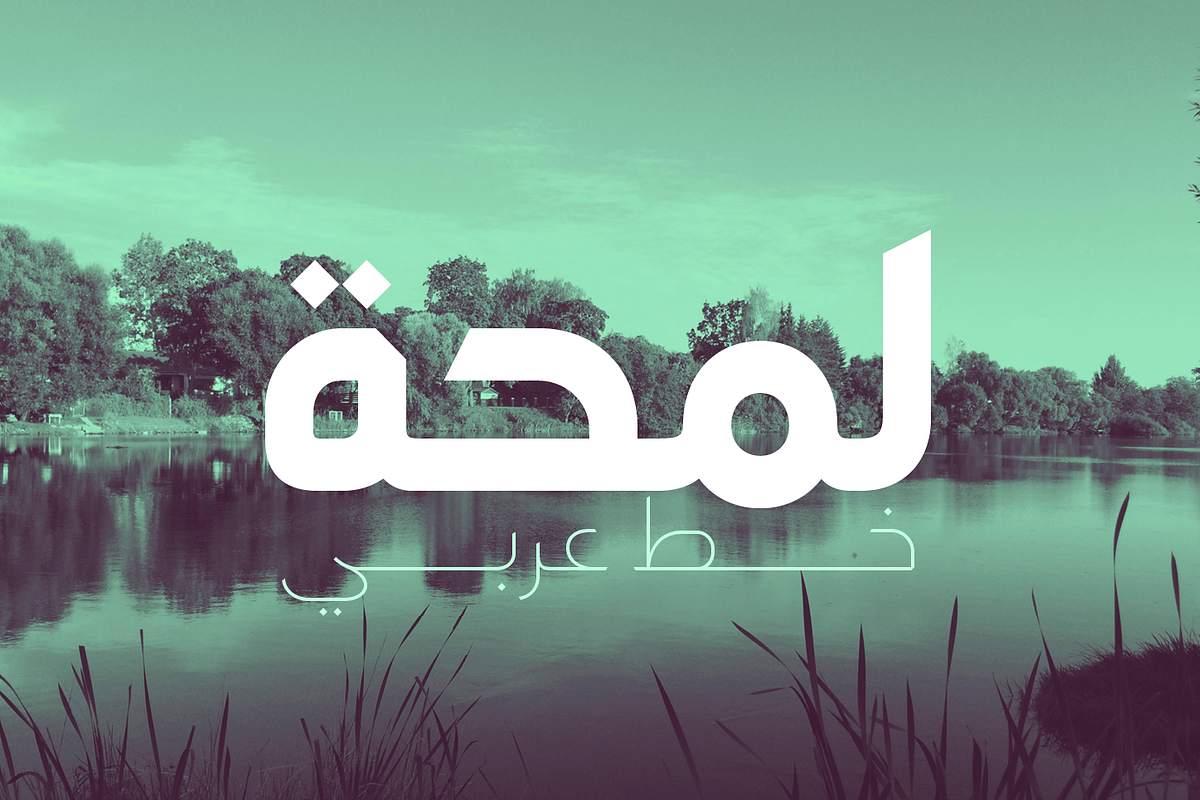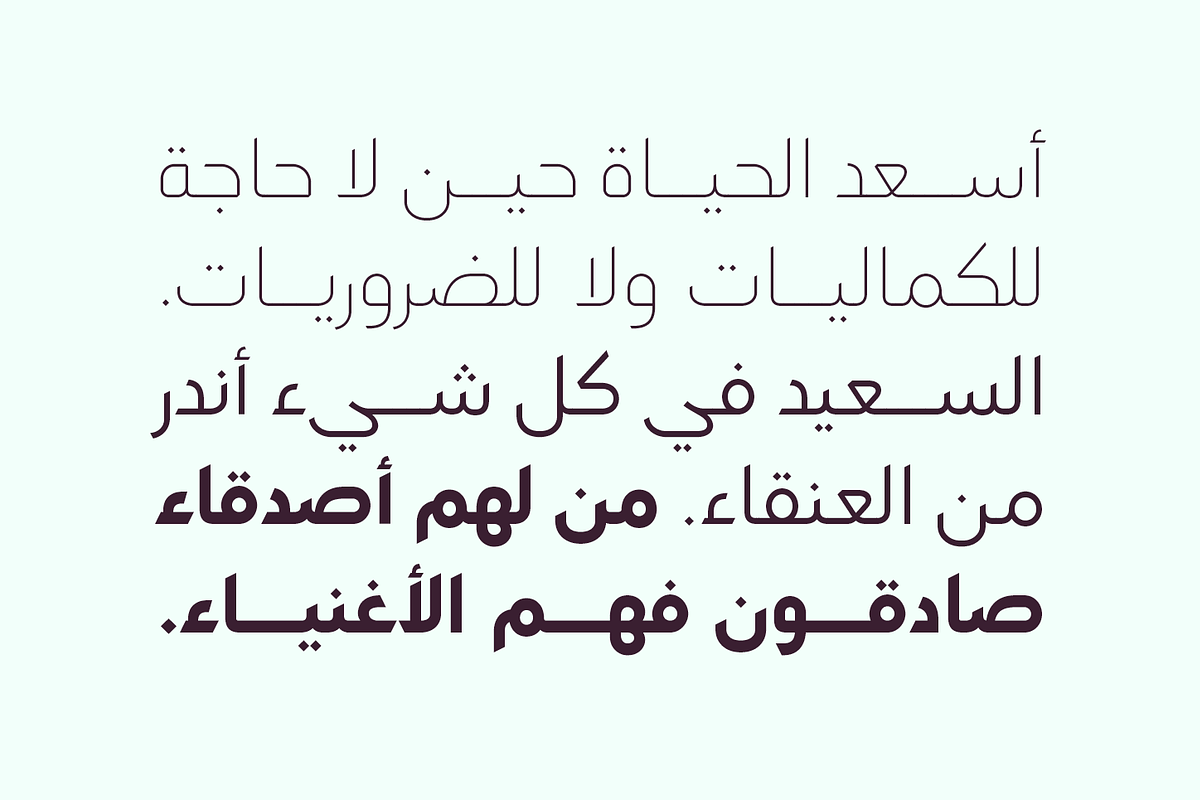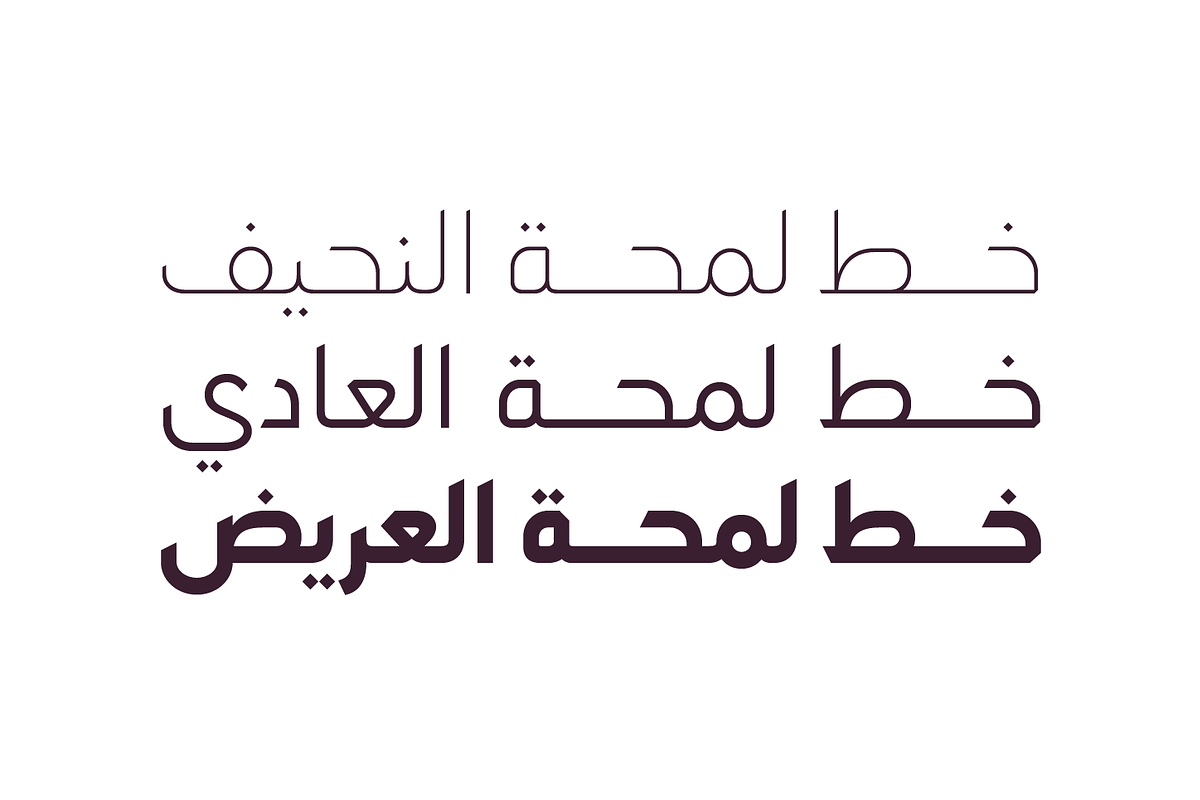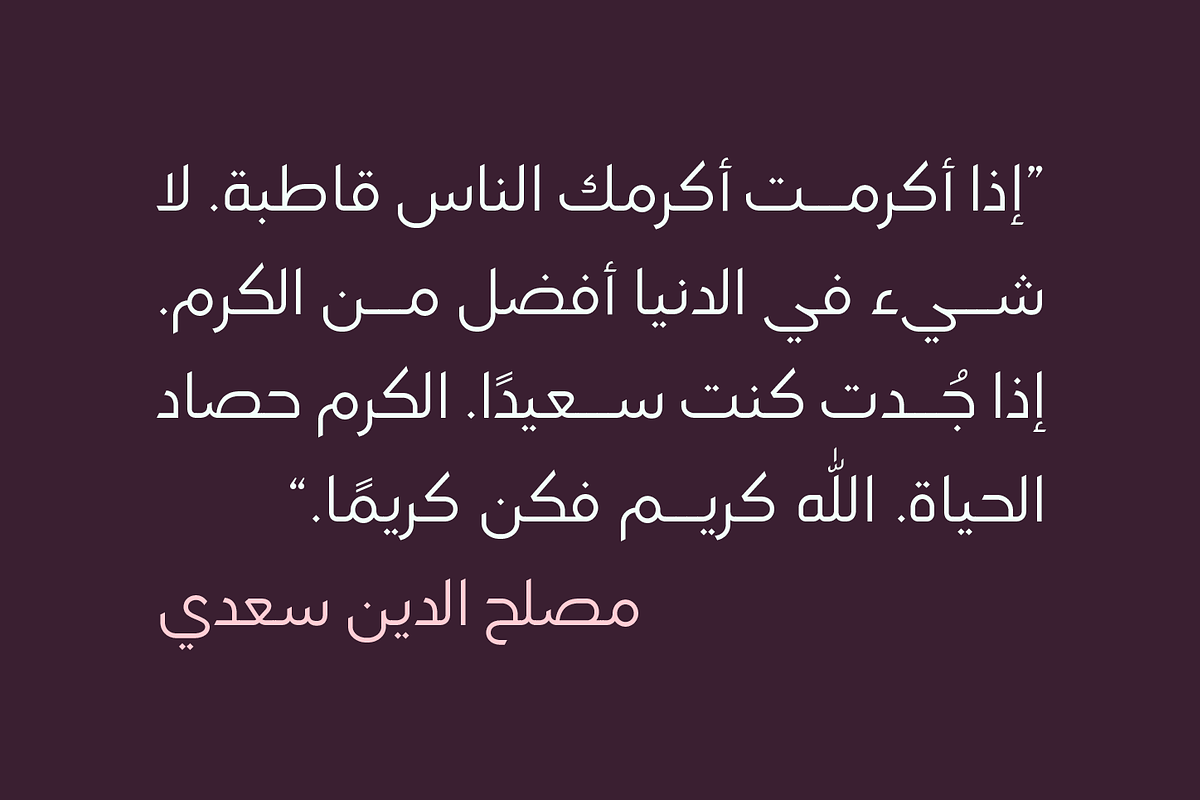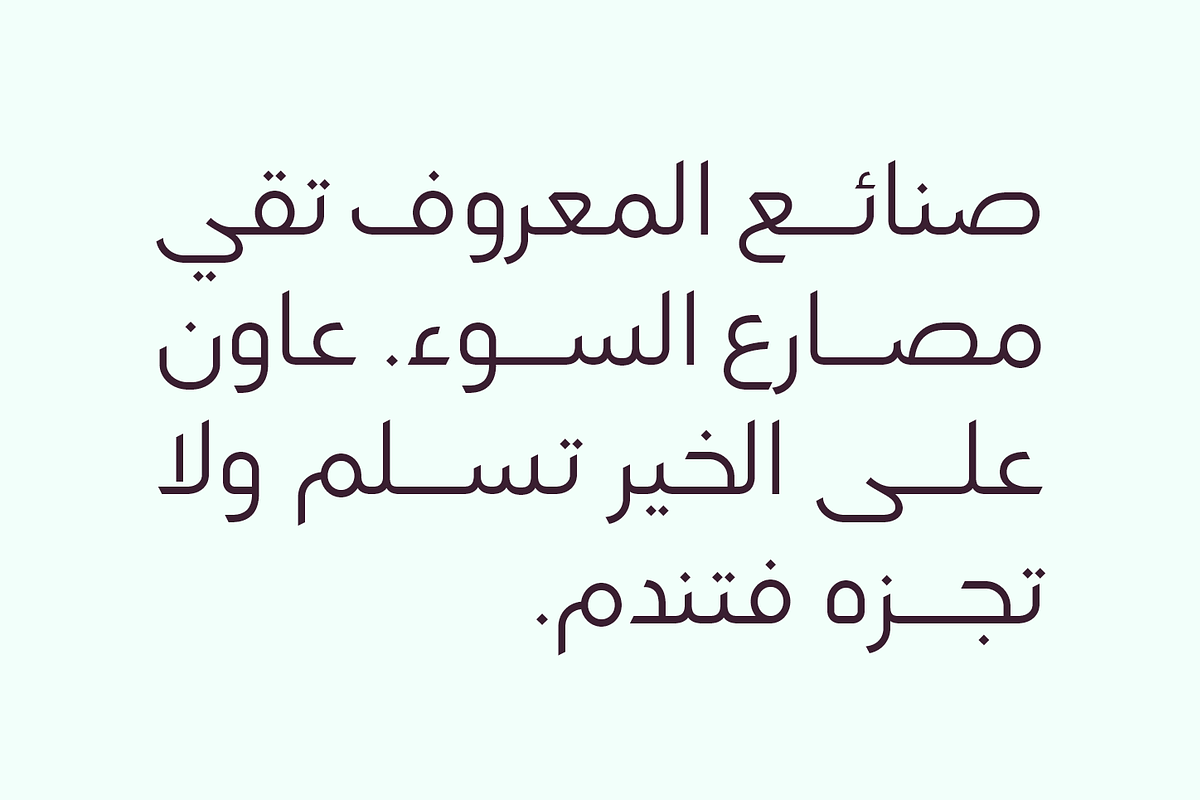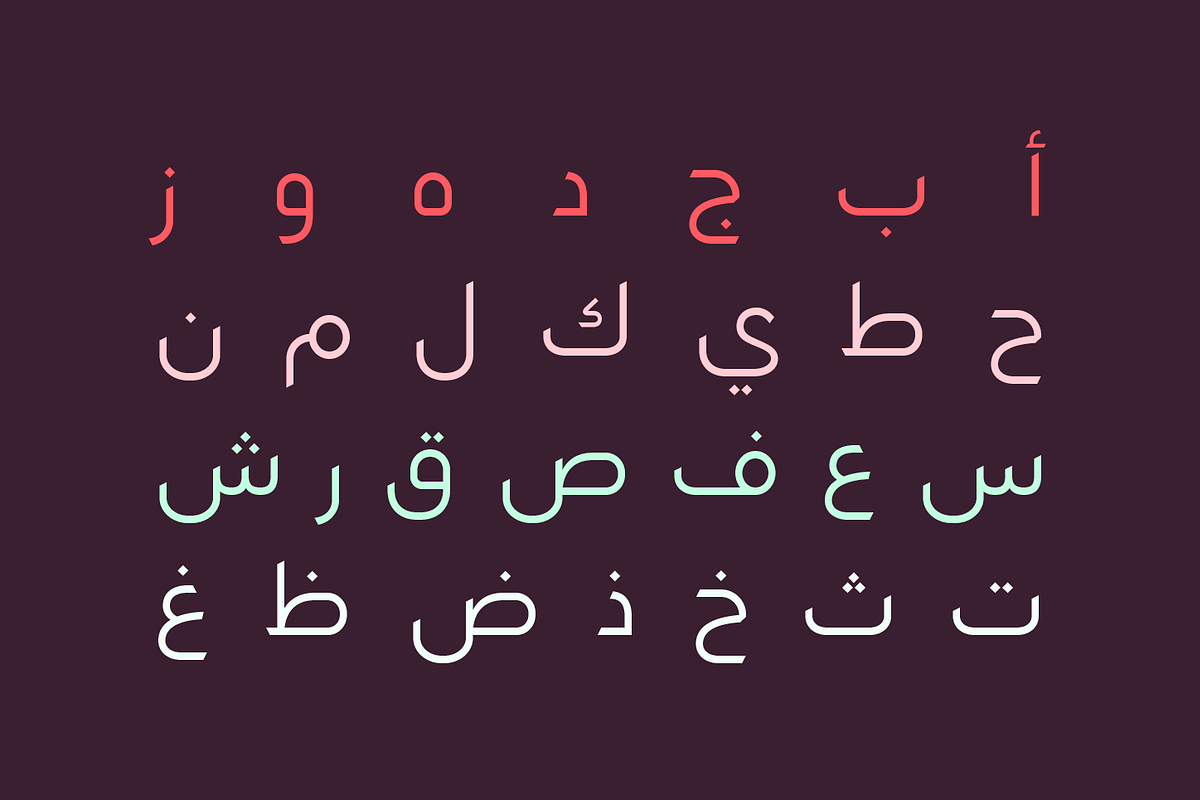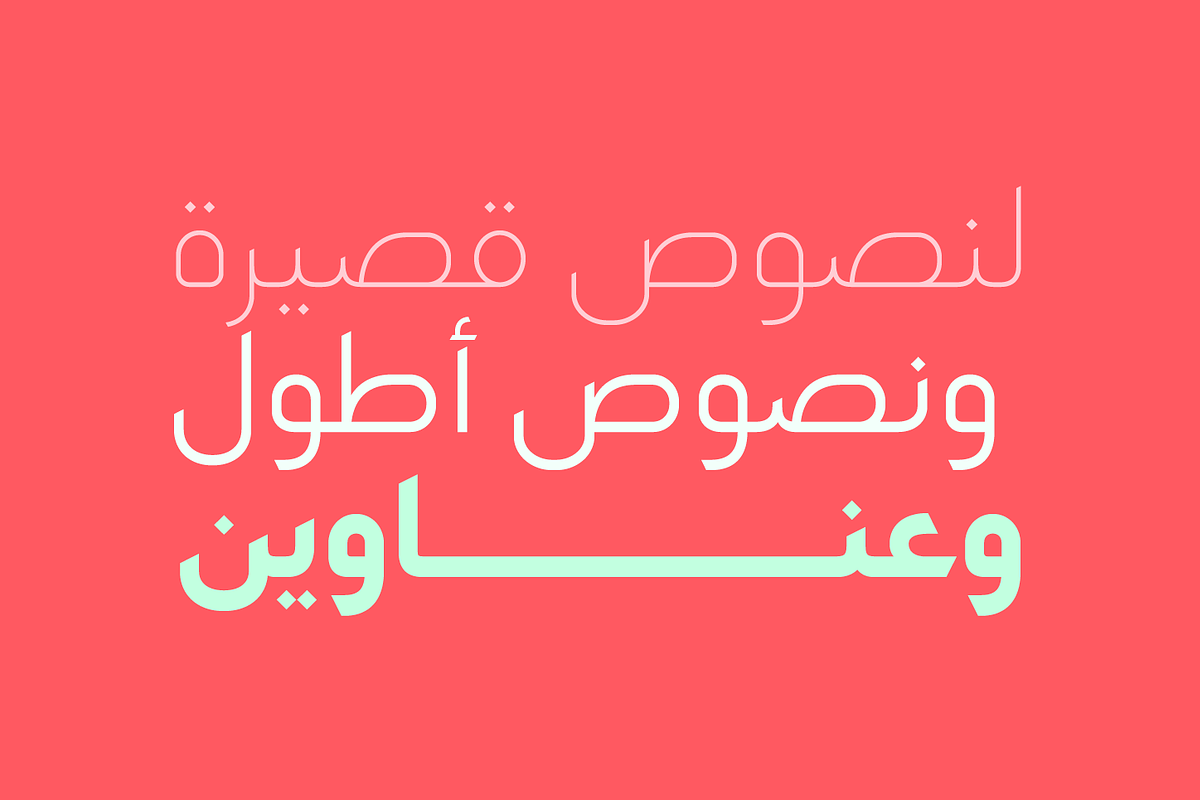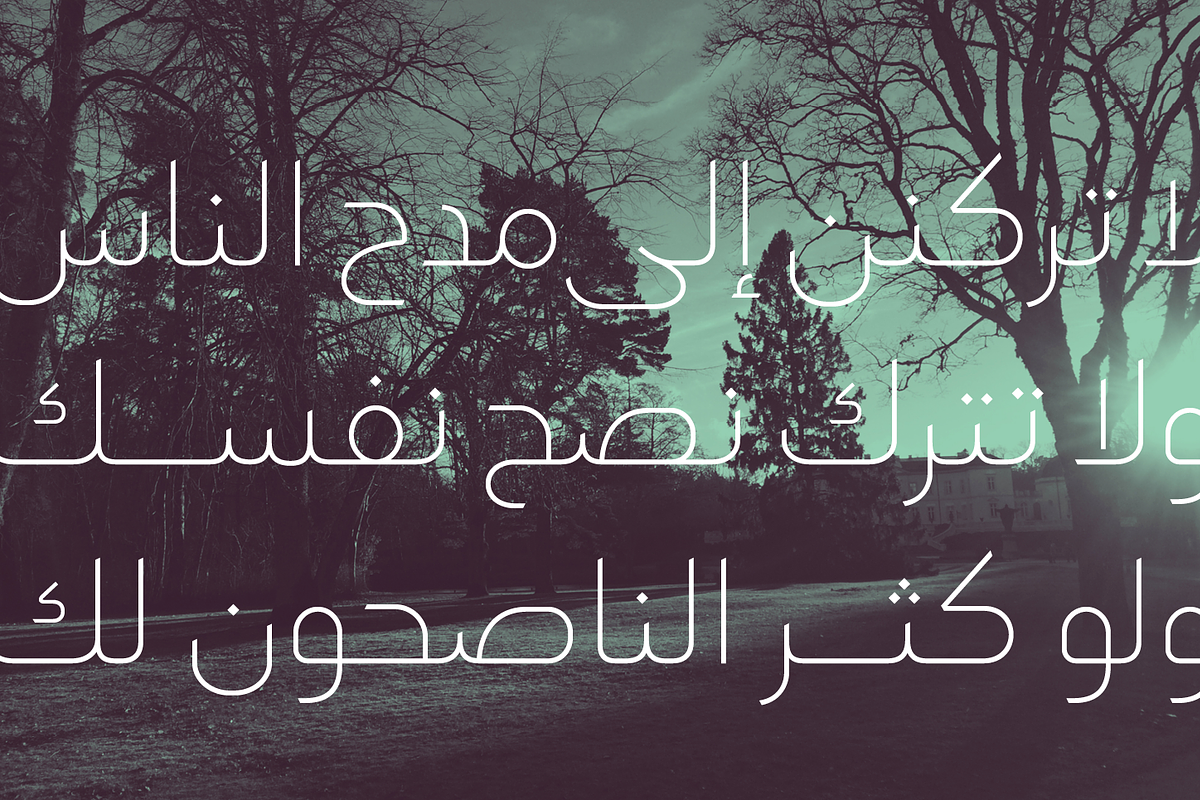
Lamhah - Arabic Font | خط لمحة
Lamhah is an Arabic typeface that features active letterforms with sharp edges. It suits a various range of modern utilizations including web, print and mobile applications. Lamhah typeface consists of three weights (Light, Regular and Bold).
- Lamhah Light
- Lamhah Regular
- Lamhah Bold